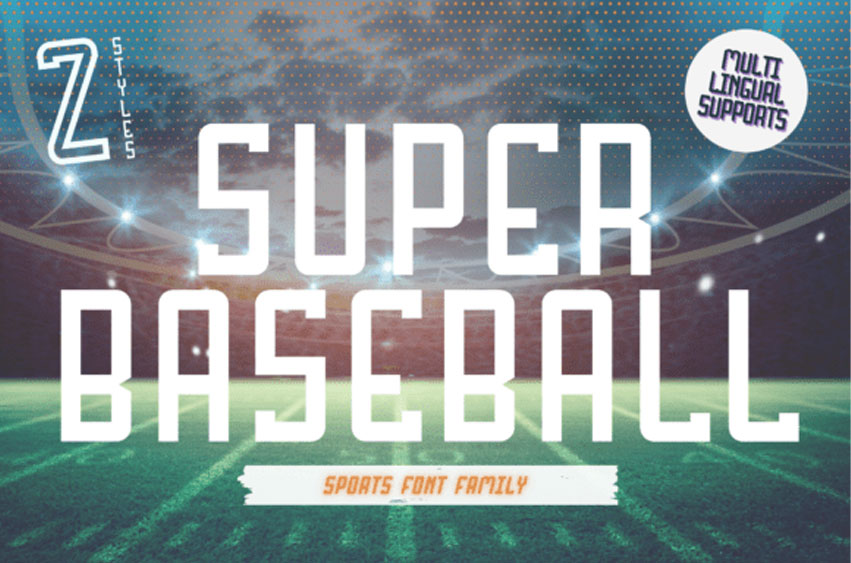
Super Baseball Font
Super Baseball Font is the athletic typeface that has been conceived from the spirited aesthetics of America’s favorite pastime. With a solid infusion of retro-chic, Super Baseball delivers a vivacious persona that’s ideal for team jerseys, sports-themed logos, event publicity, and products craving a bold, self-assured aura.
Capturing the essence of dynamic gameplay, this font instills a perception of energy and robust flair to your designs. Dive into the world of sports and vintage aesthetics with Super Baseball typeface.